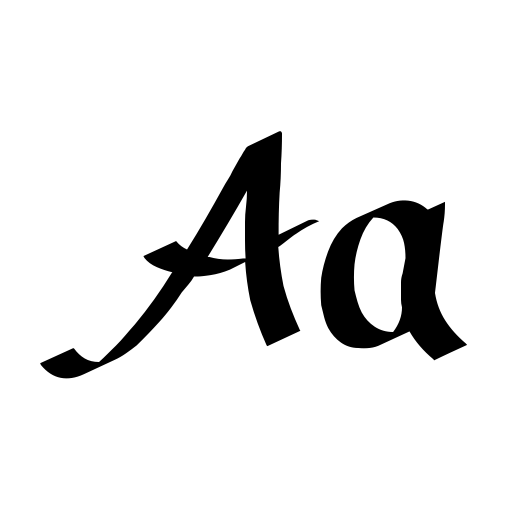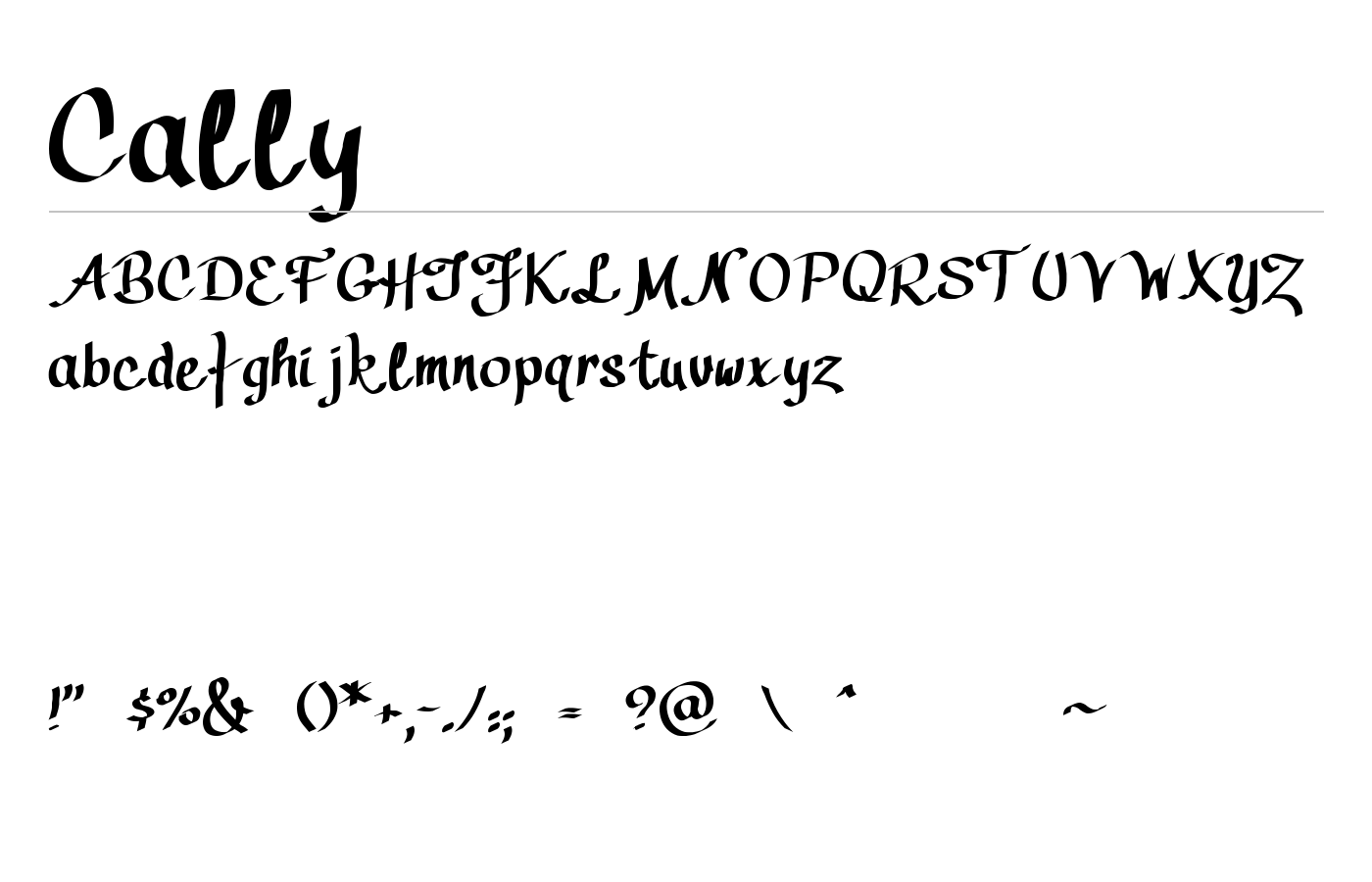
Cally is a distinctive script font with a bold weight and fluid, calligraphic strokes that blend elegance with a touch of artistic flair. Its dynamic letterforms feature varied stroke widths and unique details, ideal for creating expressive logos, stylish headlines, and creative branding that seeks a handcrafted, sophisticated personality. This font works well where a sense of individuality and charm is needed, adding a lively yet refined feel to any design.
Cally Font
About Cally Font